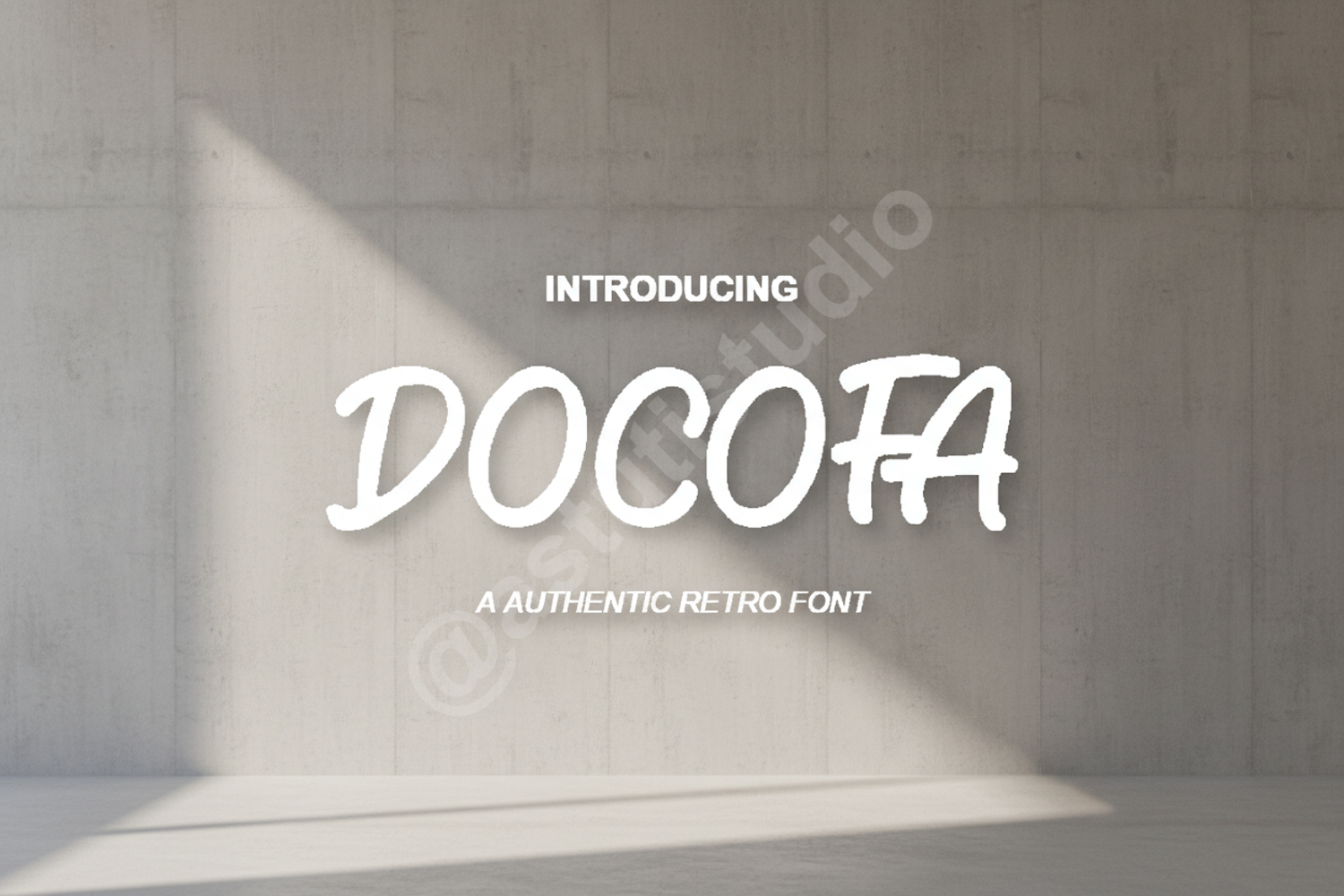
Docofa | Elegant Modern Serif Typeface
Docofa
Docofa is a premium serif typeface that seamlessly blends classic elegance with modern sophistication. Designed for creators who demand high-quality aesthetics, this font offers a unique balance of sharp lines and graceful curves, making it a versatile addition to any designer's toolkit. Whether you are crafting a minimalist logo or a detailed editorial layout, Docofa provides the professional polish your project deserves.
- Full character set including uppercase, lowercase, and numerals
- Comprehensive punctuation and symbols
- Multilingual support for international design needs
- Luxury Branding: Create sophisticated logos and corporate identities that command attention.
- Editorial Design: Perfect for high-end magazine layouts, book covers, and striking headlines.
- Wedding Stationery: Add a touch of timeless class to invitations, menus, and save-the-date cards.
- Social Media: Elevate your digital presence with eye-catching quotes and promotional graphics.
- Product Packaging: Enhance the premium feel of labels, boxes, and retail hangtags.